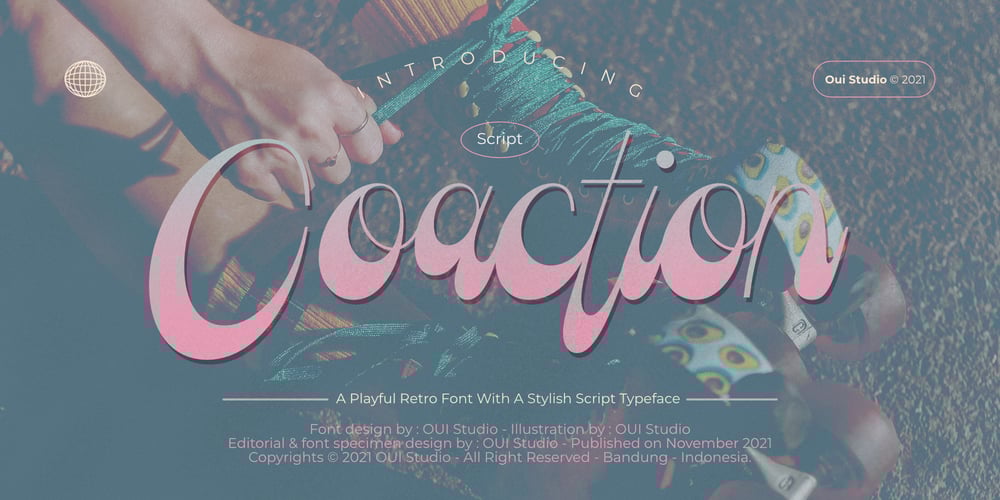
Coaction Font Family was designed by Bobby Satria and published by Oui Studio. Coaction contains 1 styles and family package options. Hello, friend! ‘Coaction’ font is coming; a playful retro font with a stylish script typeface. Inspired by the 70’s roller skates era, Coaction is ready to rollin’ on your artwork.Coaction is perfect for branding, logo, invitation, funky vibes, fashion, headlines, event, title, and more.